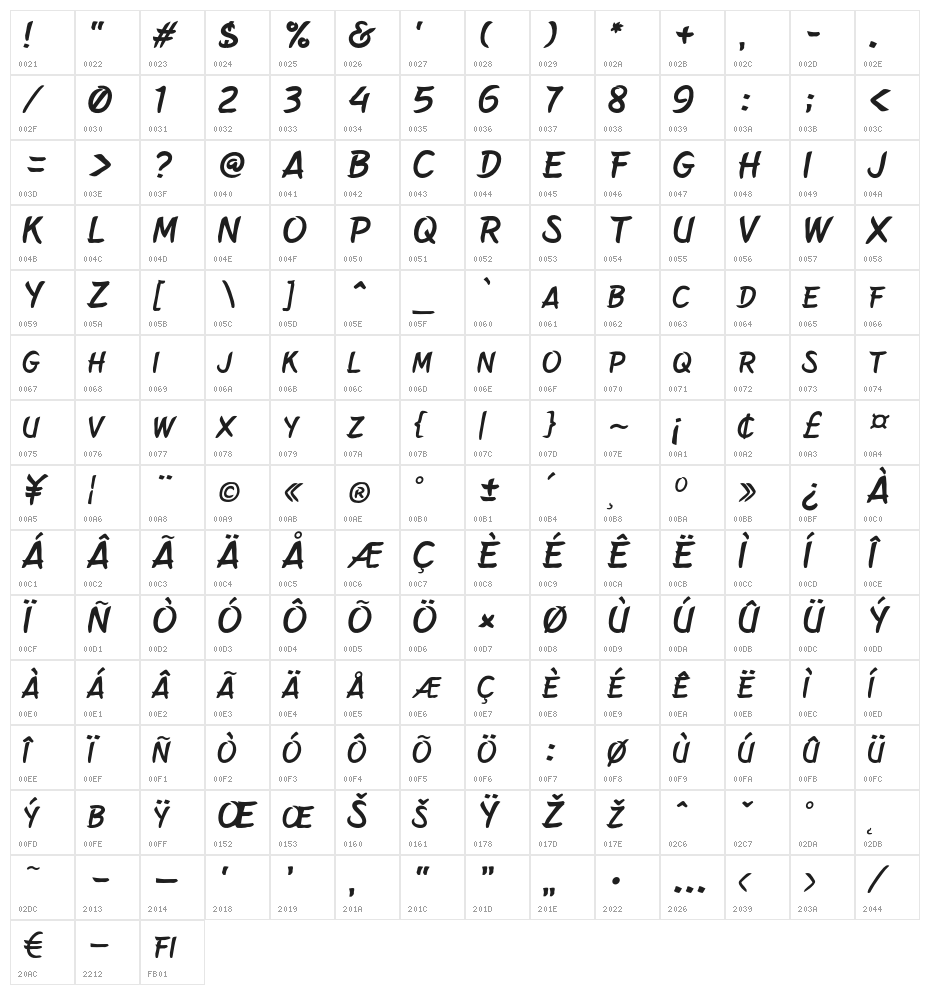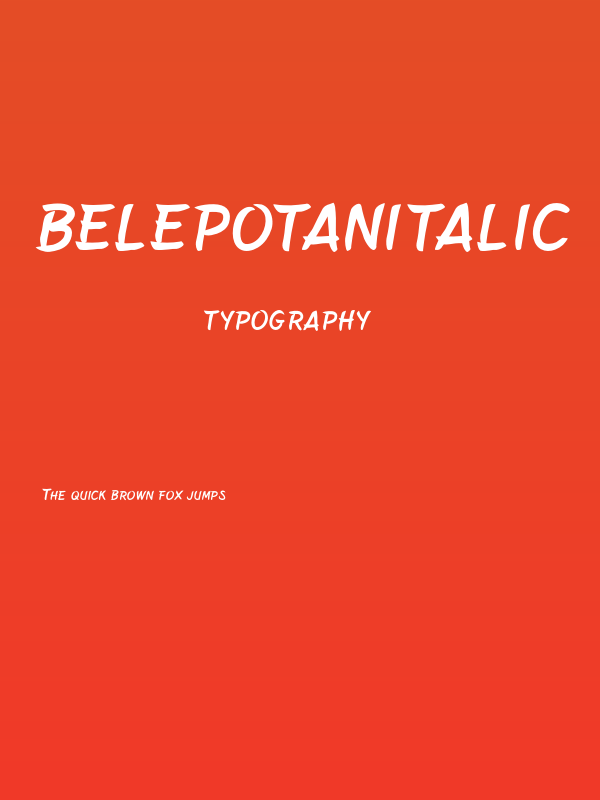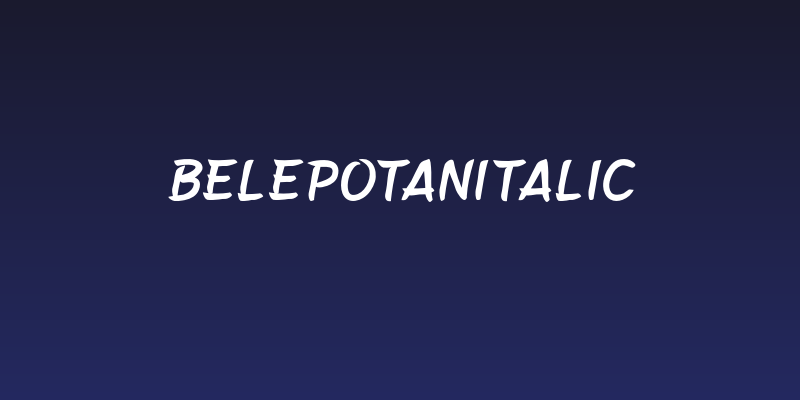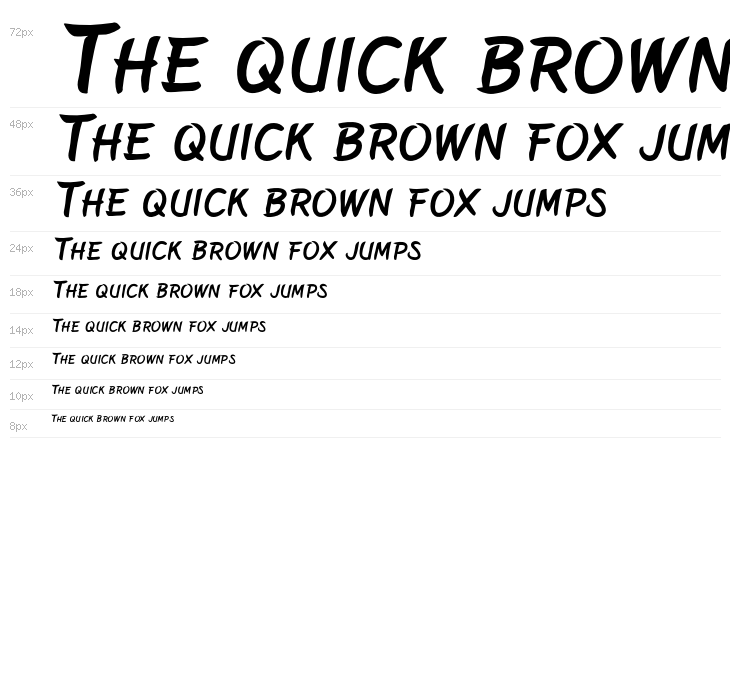
BelepotanItalic Font
BelepotanItalic Description
This font features a playful and dynamic script style with a noticeable slant, giving it an energetic and lively appearance. The characters are bold and have a brush-like texture, suggesting a handwritten quality. The uppercase and lowercase letters maintain a consistent flow, with rounded edges and smooth curves. The numbers and special characters are equally expressive, complementing the overall aesthetic. This font's unique style makes it suitable for projects that require a personal touch or a sense of movement and creativity.
| Proposed Projects | Ideal for greeting cards, invitations, branding, and creative posters. |